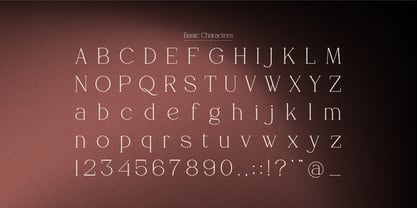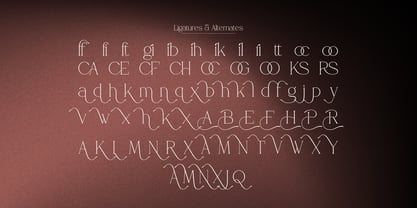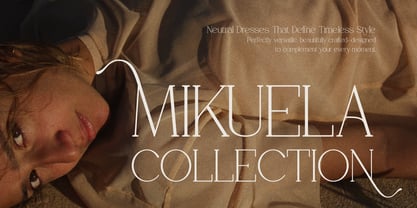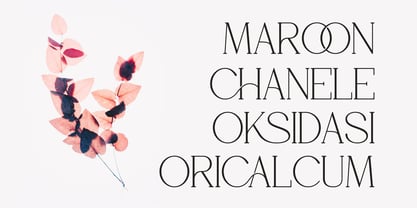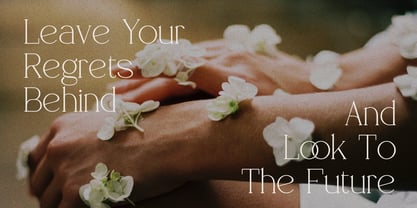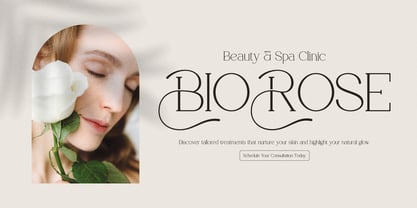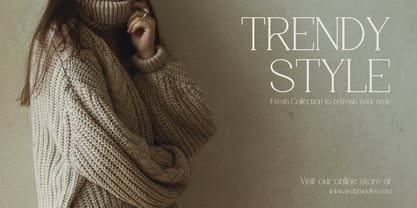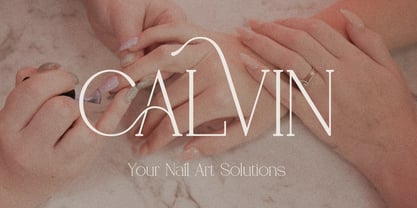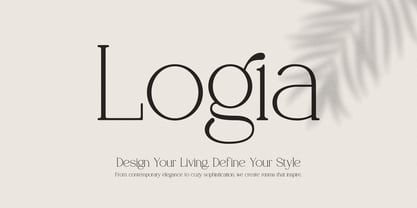
Glica Qidvers
par Denustudio
La famille de polices Glica Qidvers a été conçue par Dede Nugraha et publiée par Denustudio. Glica Qidvers contient 2 styles et options de package familial.
Glica Qidvers | Modern Elegant Serif, from Denustudios, suitable for any projects such as: logos, branding projects, homeware designs, product packaging, mugs, quotes, posters, shopping bags, t-shirts, book covers, name card, invitation cards, greeting cards, label, photography, watermark, special events, and all your other lovely projects that need a Modern Elegant Serif taste.
• Regular and Italic
• Alternate and Ligature
Concepteurs: Dede Nugraha
Éditeur: Denustudio
Fonderie: Denustudio